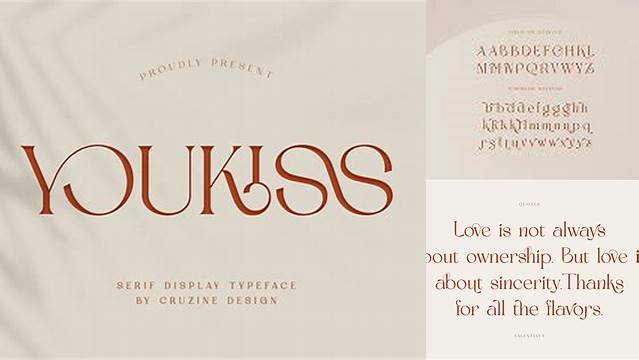
Hey guys! Ever stumbled upon a font that just screams elegance and sophistication? Well, let’s dive deep into the world of the Youkiss elegant serif font, and how you can snag it for free! This guide will cover everything from its origins and characteristics to its various applications and where you can download it without spending a dime. Ready? Let's get started!
1. Understanding the Allure of Youkiss Font
So, what makes the Youkiss elegant serif font so special? Serifs, those little feet or strokes at the end of letterforms, are traditionally associated with classic, refined typography. Youkiss takes this a step further by blending traditional serif characteristics with a modern flair. This font is designed to evoke feelings of luxury, grace, and sophistication, making it a favorite for brands and designers aiming to project an upscale image. Think of high-end fashion magazines, exclusive wedding invitations, or the logo of a boutique hotel – Youkiss fits right in!
Its balanced letterforms and carefully crafted serifs ensure readability while maintaining an air of elegance. This makes it versatile enough for both headlines and body text, although it truly shines in larger sizes where its intricate details can be fully appreciated. The spacing between letters is also meticulously managed to provide a harmonious visual rhythm, enhancing the overall reading experience. Whether you're a seasoned designer or just starting out, understanding the allure of Youkiss is the first step in harnessing its potential for your projects.
2. Key Features of Youkiss Elegant Serif
Let’s break down the key features that make Youkiss elegant serif font stand out. First off, the contrast between thick and thin strokes adds visual interest and depth. This isn't your run-of-the-mill font; it has personality! The serifs themselves are delicately shaped, adding a touch of sophistication without being overly ornate. They're not too clunky, not too fragile – just right.
Another notable feature is its extensive character set. Youkiss typically includes uppercase and lowercase letters, numerals, punctuation marks, and a variety of special characters and ligatures. Ligatures, those fancy letter combinations like 'fi' or 'fl', add a polished, professional touch. This comprehensive set ensures that you can use Youkiss in a wide range of contexts, from crafting compelling headlines to designing detailed documents. Plus, the font often supports multiple languages, making it a versatile choice for international projects. All these features combine to make Youkiss not just a font, but a design asset that can elevate any project it graces.
4. Using Youkiss in Graphic Design Projects
Okay, you've got your hands on the Youkiss elegant serif font – now what? This font is incredibly versatile and can be used in a variety of graphic design projects. Think about branding materials like logos, business cards, and letterheads. Its elegant appearance can instantly elevate a brand's image, conveying sophistication and professionalism. Youkiss also works beautifully in print design, such as magazines, books, and brochures, where its readability and refined aesthetic can enhance the overall visual experience.
In the digital realm, Youkiss can be used for website headers, banners, and social media graphics. Its clean lines and elegant serifs make it stand out without being overwhelming. When using Youkiss, consider pairing it with a simpler sans-serif font for body text to create a balanced and harmonious design. Experiment with different font sizes, weights, and colors to achieve the desired effect. Remember, the key is to use Youkiss strategically to enhance your design, not to overshadow it. With a little creativity, you can leverage its elegance to create stunning visuals that capture attention and communicate your message effectively.
5. Pairing Youkiss with Other Fonts
One of the keys to using the Youkiss elegant serif font effectively is knowing how to pair it with other fonts. You want to create a harmonious visual balance, right? Generally, pairing a serif font like Youkiss with a sans-serif font is a safe bet. Sans-serif fonts, with their clean and modern lines, provide a nice contrast to the more ornate serifs of Youkiss. Think of fonts like Helvetica, Arial, or Open Sans. These fonts are legible and unobtrusive, allowing Youkiss to shine in headings and titles.